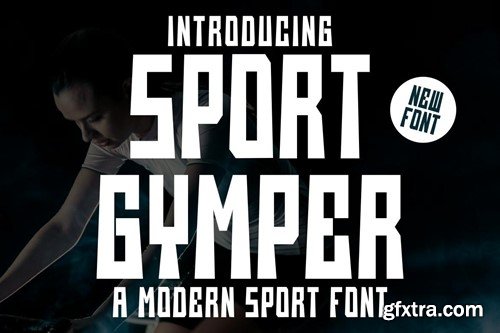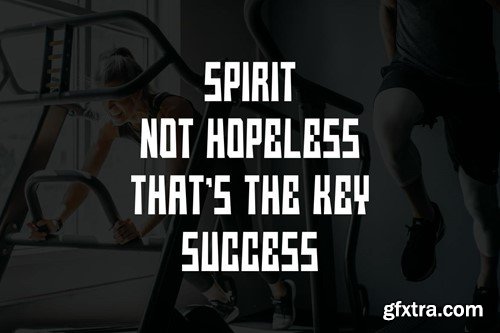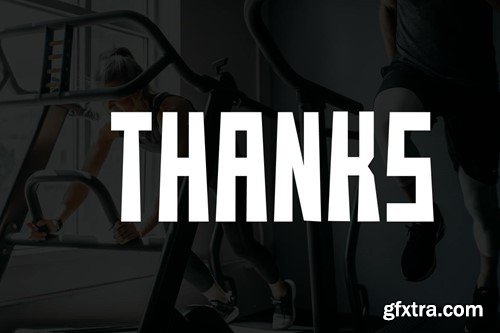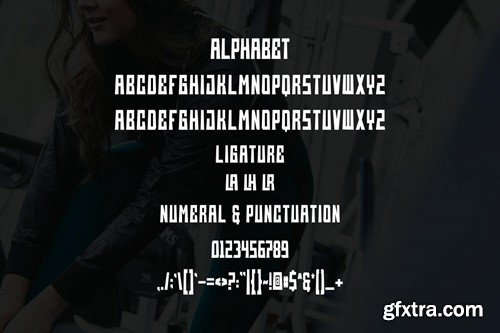
Sport Gymper Font
Introducing Sport Gymper Modern Sans Serif. Sport Gymper is a modern and simple font, best used as a display for headings, logos, branding, magazines, product packaging and invitations. Sport Gymper come with clean lines and smooth curves give any project an extra touch of class. What you get: Thank you.